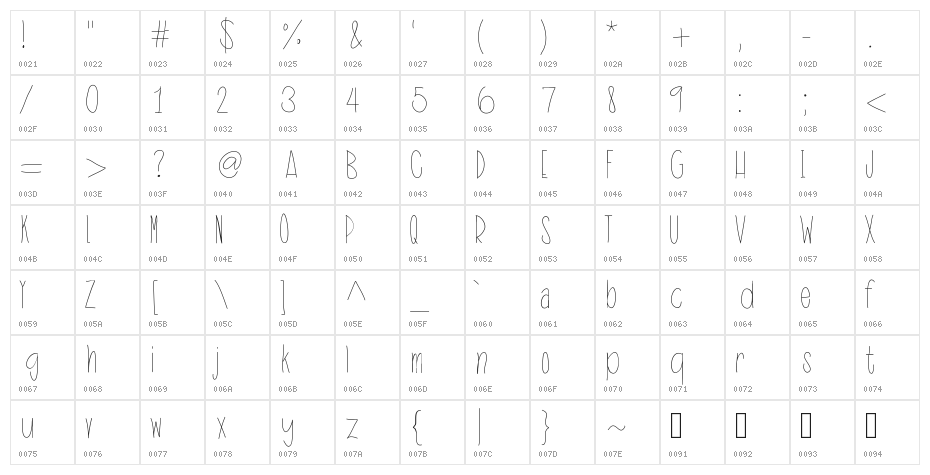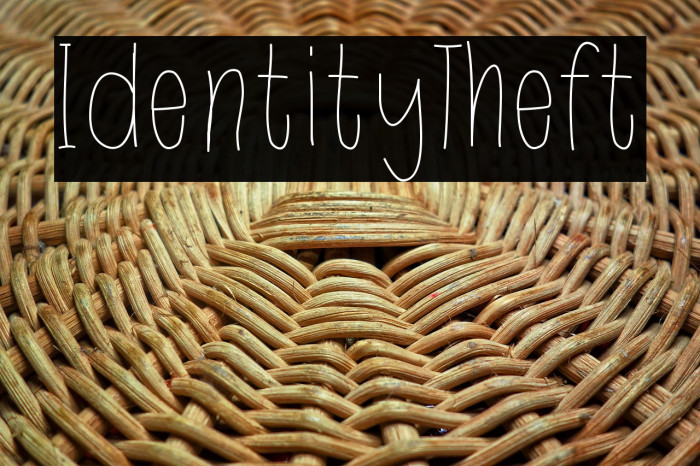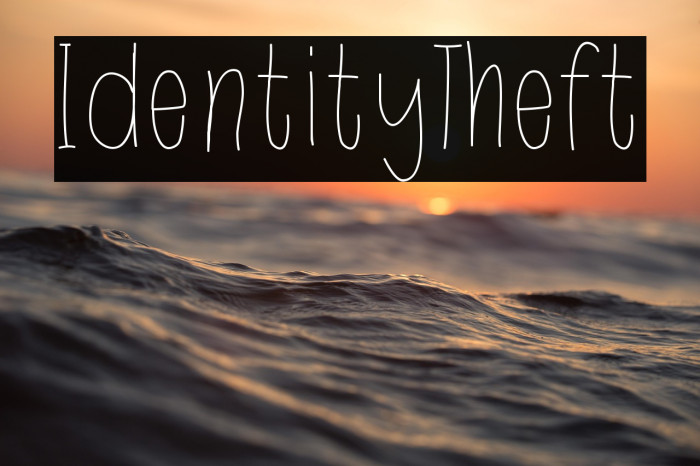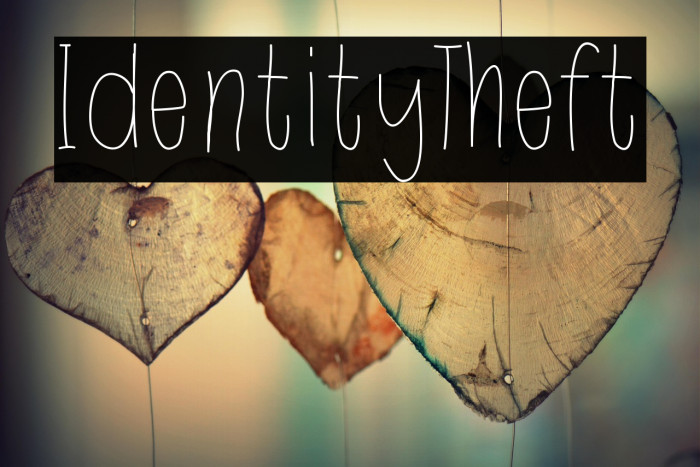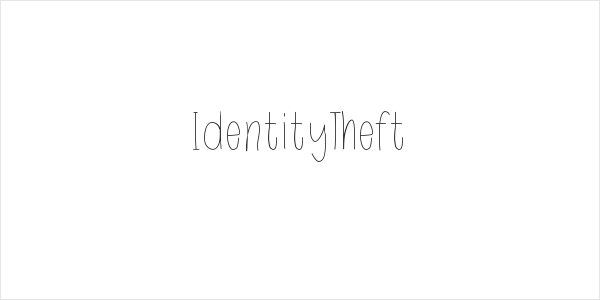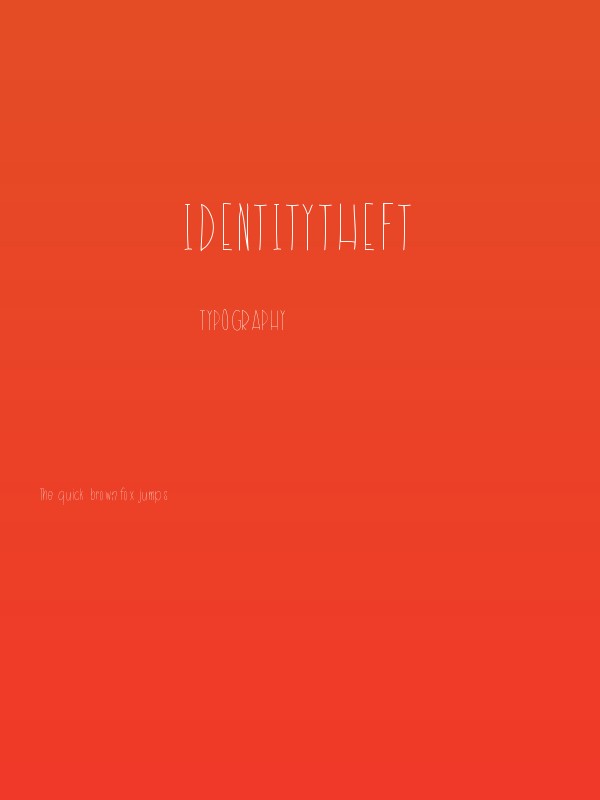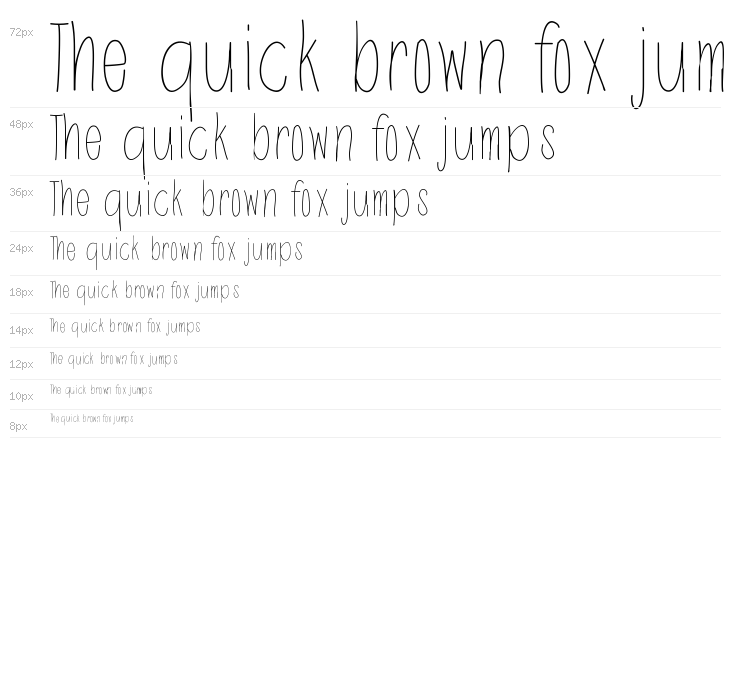
IdentityTheft Font
IdentityTheft Description
A playful, handwritten font with tall, narrow letters and a casual style.
| Width | Condensed |
| Overall Style | Casual |
| Use Case | Headlines, Informal text |
| Proposed Projects | Greeting cards, children's books, casual invitations. |